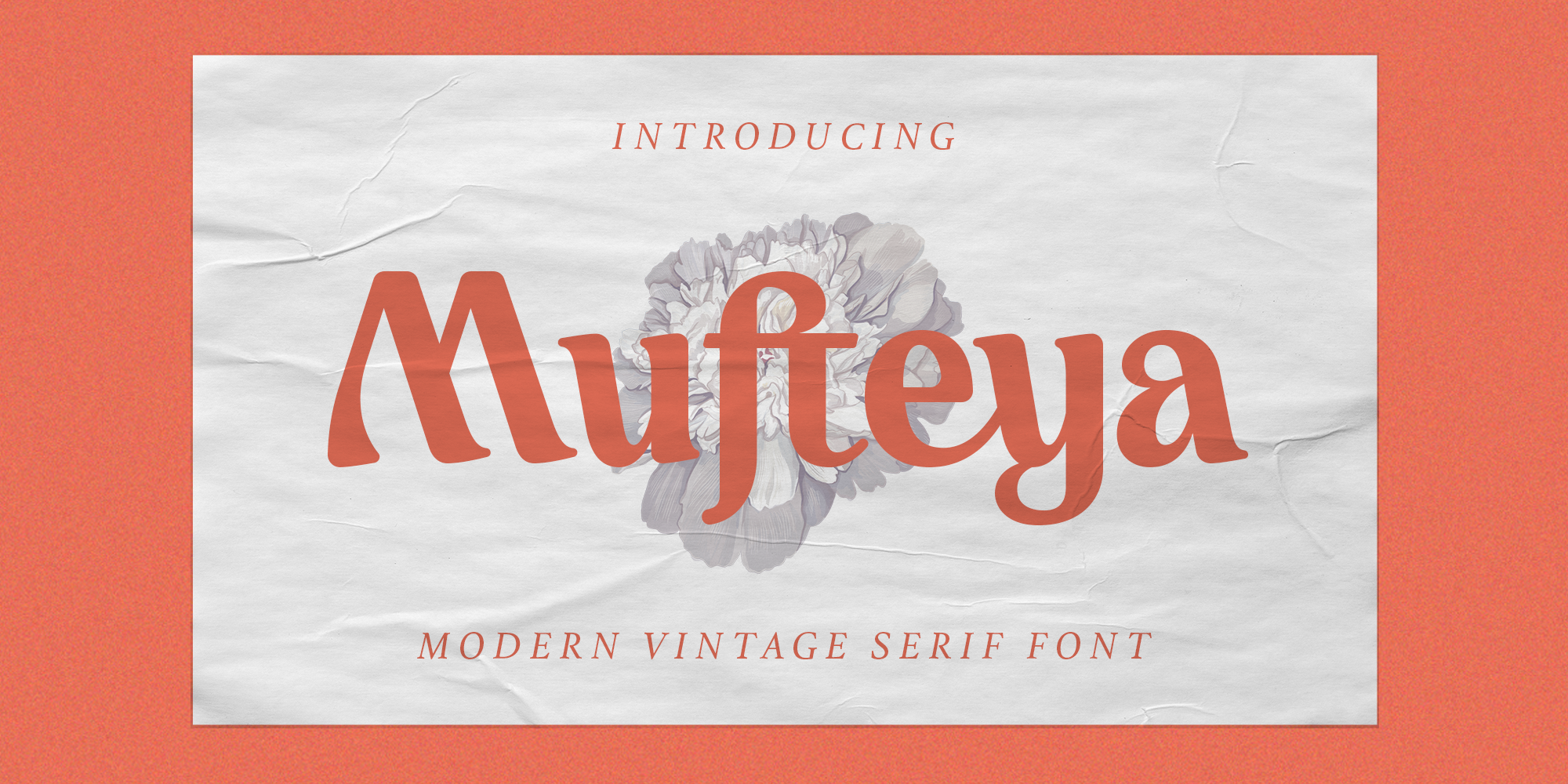
This mystical typeface excels in spiritual brand identities, meditation center signage, wellness retreat materials, religious publication layouts, cultural heritage projects, traditional art exhibitions, contemplative book covers, and sacred ceremony communications. Its transcendent character makes it perfect for projects requiring spiritual depth and cultural reverence.
Mufteya Font generates excitement through its sacred elegance that captures the profound wisdom of ancient traditions and spiritual enlightenment. The font's flowing curves and meditative letterforms create an atmosphere of divine inspiration that resonates with audiences seeking deeper meaning and spiritual connection. Its carefully blessed character variations deliver transcendent readability while maintaining distinctive sacred personality that reflects the timeless quest for inner peace and universal understanding.
The Mufteya Font family includes multiple spiritually-inspired variations such as regular, light, bold, ornamental, and calligraphic styles. Each family member preserves the distinctive sacred aesthetic while offering different levels of reverence for various spiritual applications. This enlightened collection empowers designers to create meaningful compositions that honor ancient wisdom while speaking to contemporary souls seeking guidance and spiritual awakening.